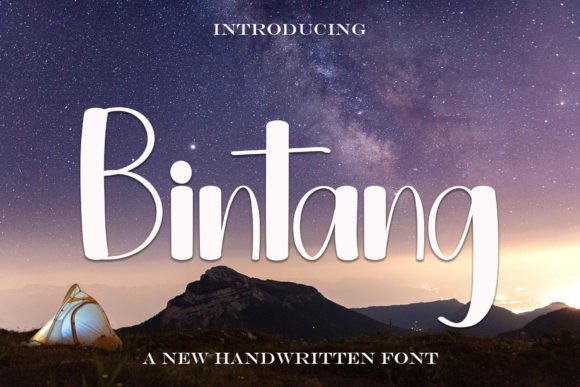
The Perfect Touch for Your Designs
Have you ever stared at a blank page, waiting for that spark of creativity to strike? For designers, this moment is a daily occurrence. It’s the moment when everything comes together, and a beautiful idea is born. As you start brainstorming, you know that the right font can make all the difference.
That’s where the Bintang Font comes in – a stunning, handwritten font that adds an elegant touch to any project. With its distinct and timeless style, this font is perfect for creating spectacular designs that leave a lasting impression. Whether you’re working on a branding project, a wedding invitation, or a social media campaign, the Bintang Font is a valuable addition to your design toolkit.
Its versatility and unique charm make it a go-to choice for designers who want to add a personal touch to their work. So why settle for an ordinary font when you can fall in love with the Bintang Font and take your designs to the next level?
Bintang Font Key Features
- Font Family: Bintang is a unique, custom font designed to evoke a sense of elegance and sophistication.
- Character Set: The font includes a comprehensive character set, supporting multiple languages and providing a wide range of glyphs.
- Unique Characteristics: The font features a distinctive, cursive script with intricate details and subtle flourishes, making it perfect for creative and artistic applications.
Bintang Font Review
Overall, I think Bintang Font has a unique and interesting vibe to it. The intricate details and strokes give it a sophisticated feel that could work well in various design contexts.
- Uniqueness: Bintang Font stands out from more common fonts due to its intricate details and strokes.
- Legibility: Despite its complexity, the font is still relatively legible, especially in larger sizes.
- Emotional Connection: The font’s aesthetic evokes a sense of warmth and playfulness, making it suitable for creative or artistic projects.
- Readability in Small Sizes: Bintang Font can become difficult to read in smaller sizes due to its intricate details and strokes.
- Limited Versatility: While the font’s unique aesthetic works well for some projects, it might not be suitable for more formal or professional contexts.
- Technical Issues: Some users have reported technical issues with the font, such as missing characters or inconsistent rendering.
Bintang Font is a great choice for designers looking to add some personality and uniqueness to their projects. While it may have some limitations, its strengths make it a valuable addition to any design library.
Common Use Cases for Bintang Font
The Bintang font is perfect for creating eye-catching titles and headings. It’s also great for use in logos, branding materials, and other design elements where a unique and attention-grabbing font is needed.